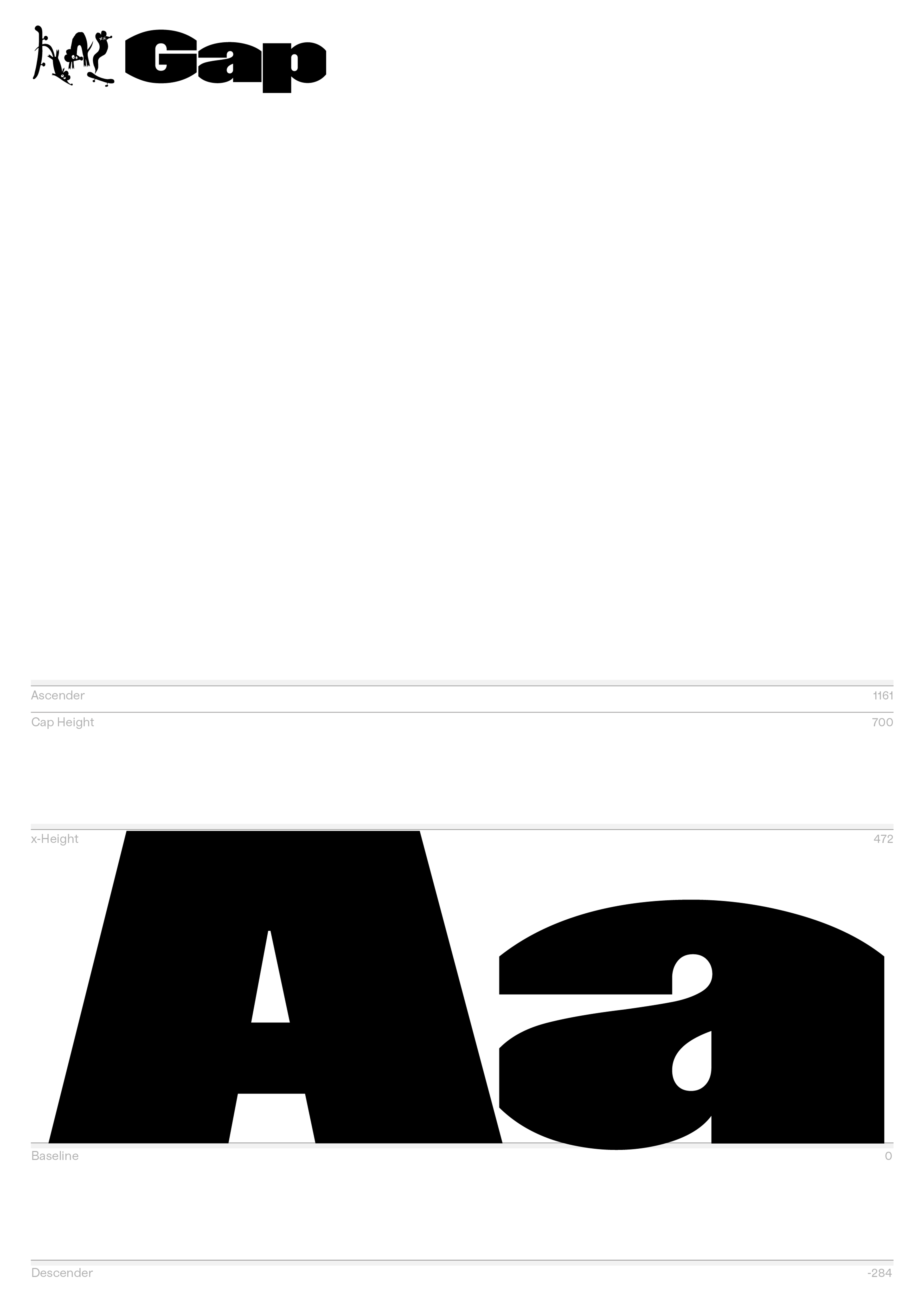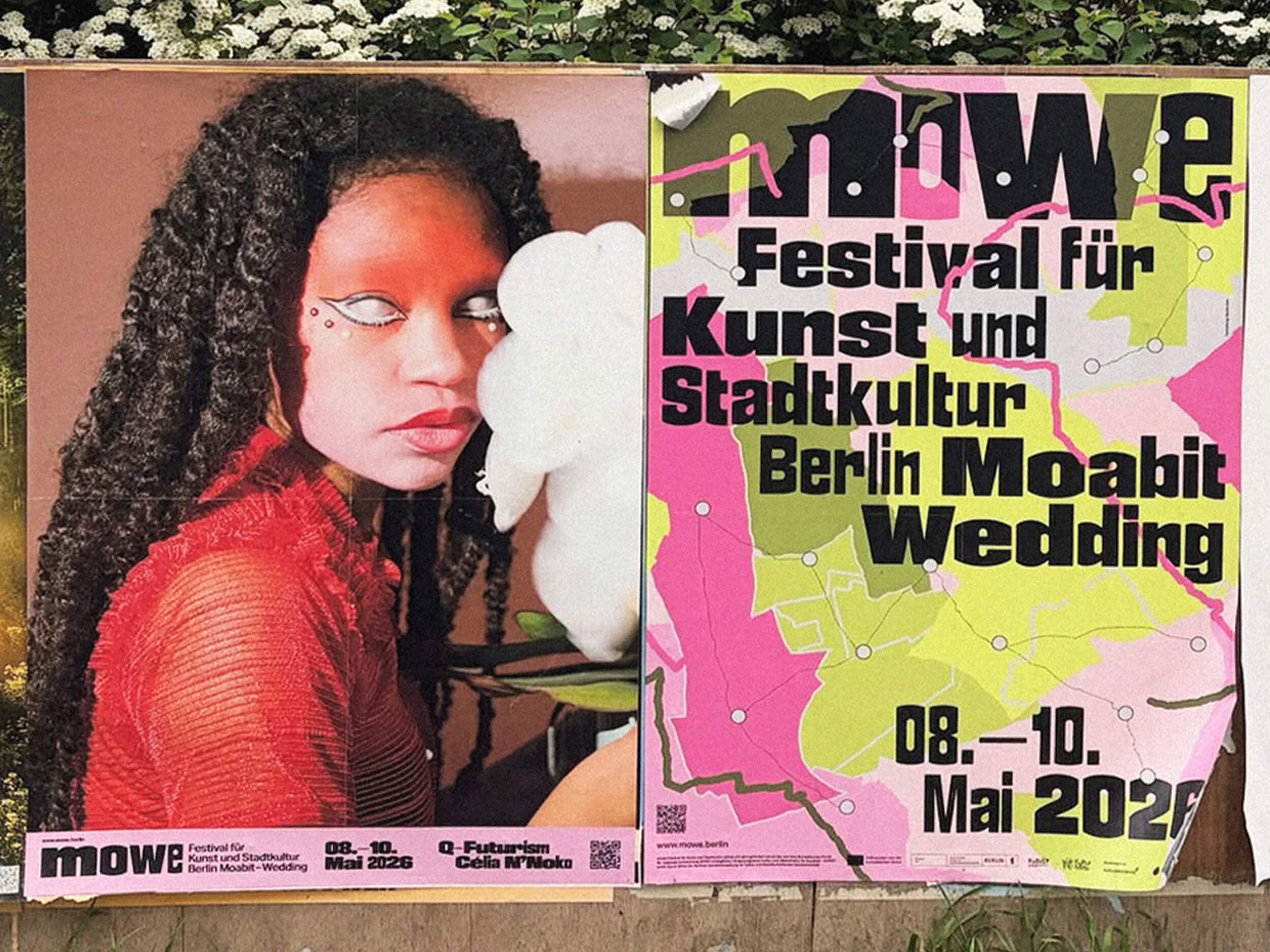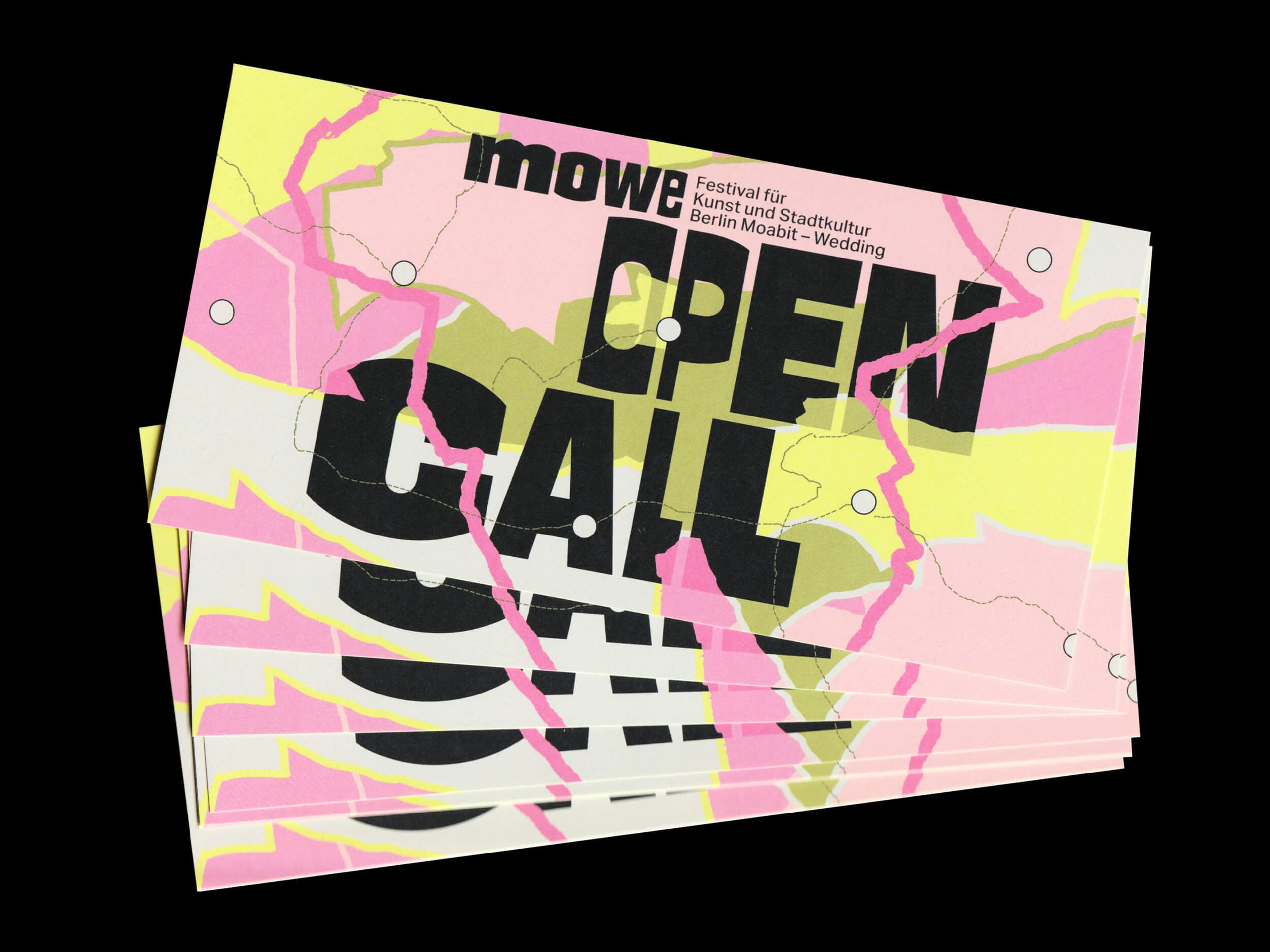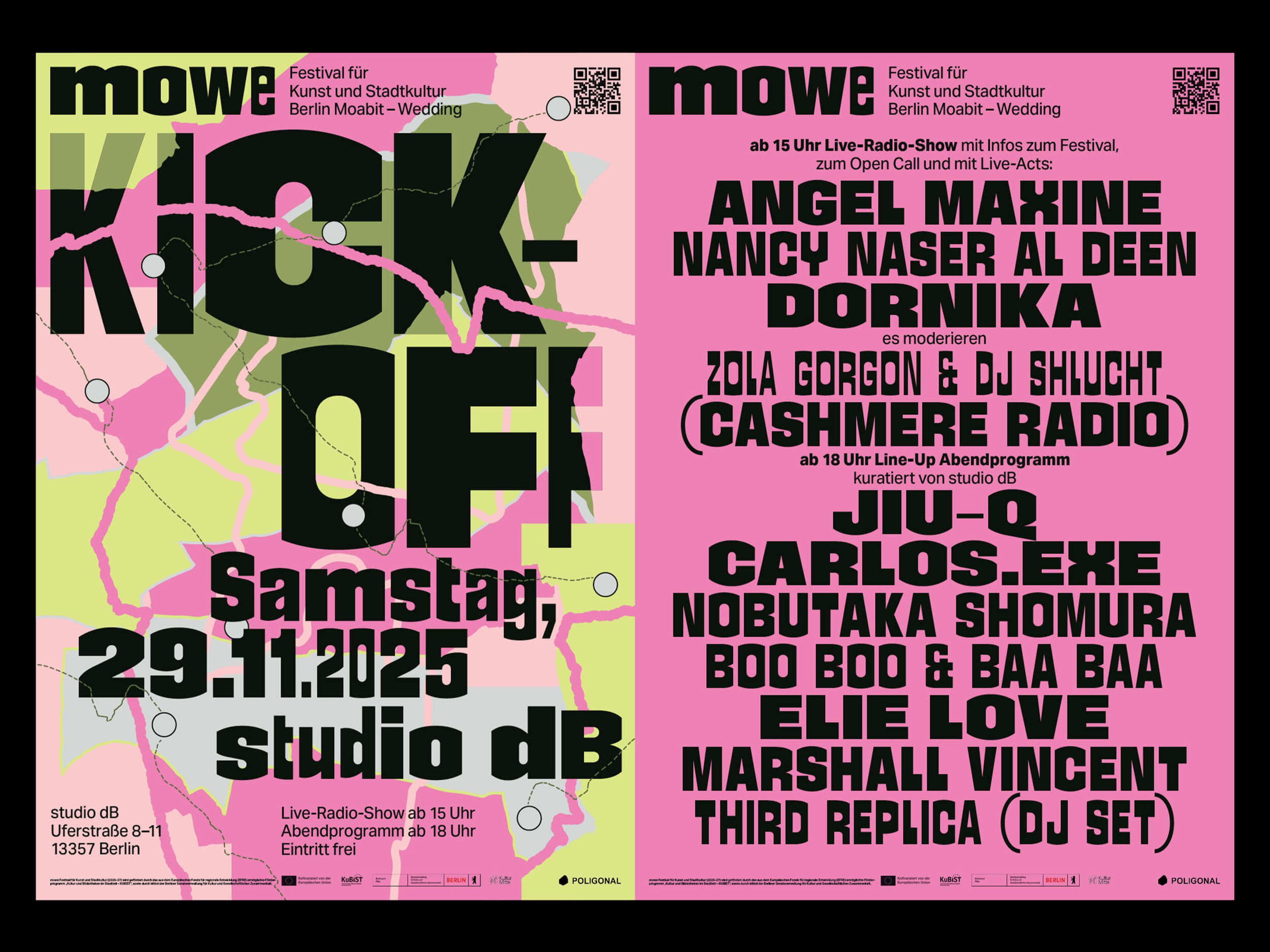
HAL Gap is a powerful display sans. The keen gesture of slicing and chopping the ends off the round characters, allows for tight spacing and a sharp appearance, perfect for those mighty headlines. Originally inspired by Leporello, Friedrich Poppl’s 1977 design for Berthold, Gap comes in seven individual styles, diverging in width and weight. They range from an extremely thin and compressed XXS to a wide and heavy XXL. All static styles are encased in a gutsy variable font, seamlessly shaping countless instances in between.
Design: HAL Typefaces
Scripts: Latin, Cyrillic
mowe Festival für Kunst und Stadtkultur Design by Studio Itch, 2026